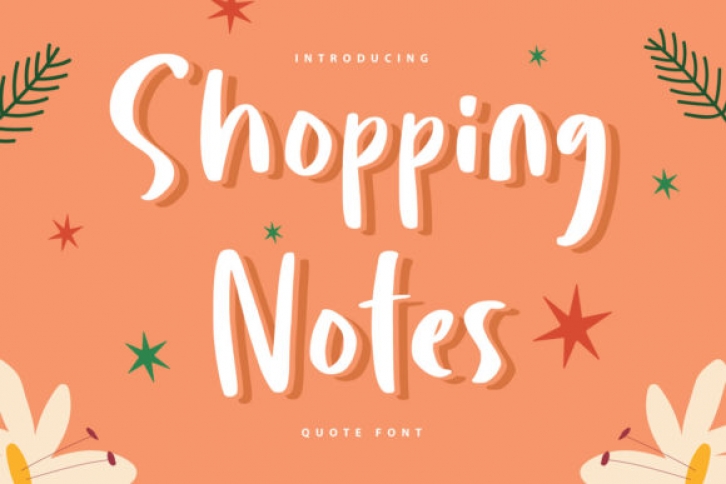
Shopping Notes is a cool and friendly handwritten font. No matter the topic, this font will be an incredibly asset to your fonts’ library, as it has the potential to elevate any creation.